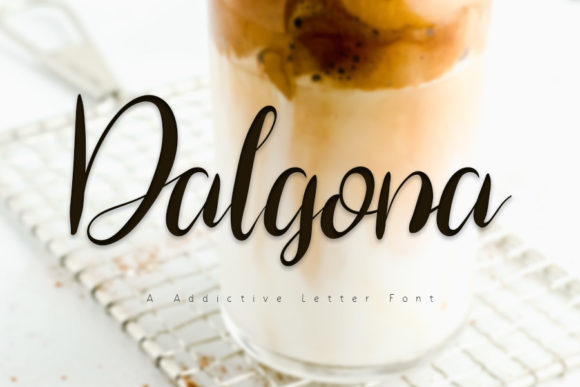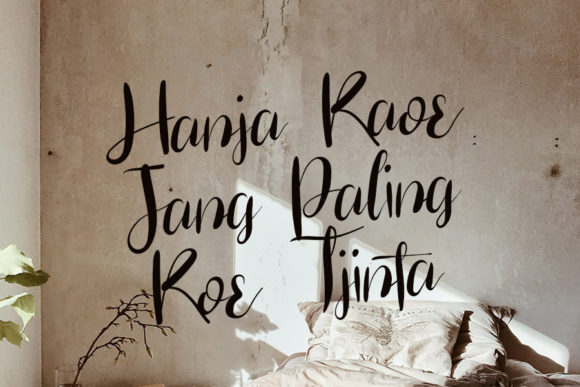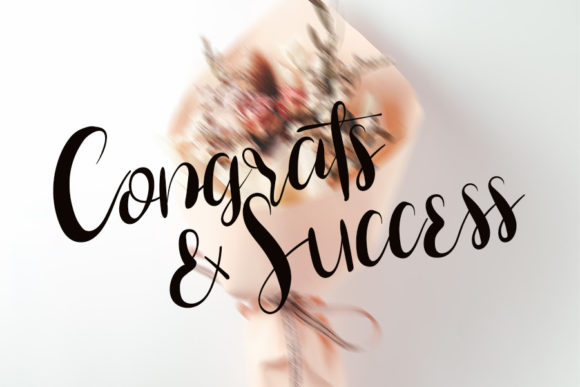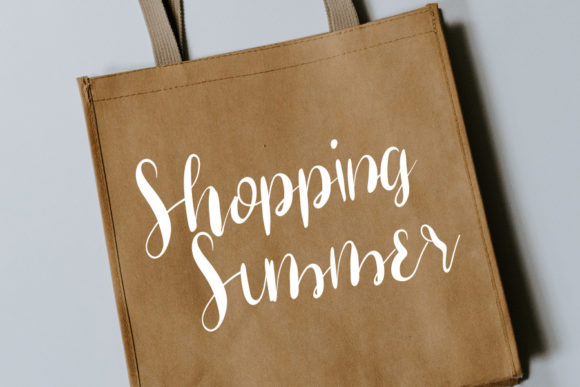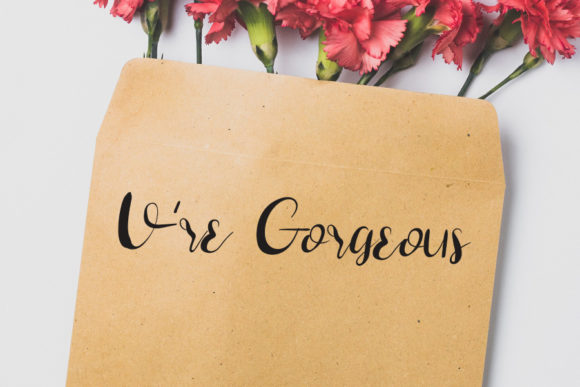
Dalgona Font
About Dalgona Font
Dalgona is a stylish and delicate script font. It has a clean, thin and smooth vibe and it will be a hit for any design that you want to add it to.